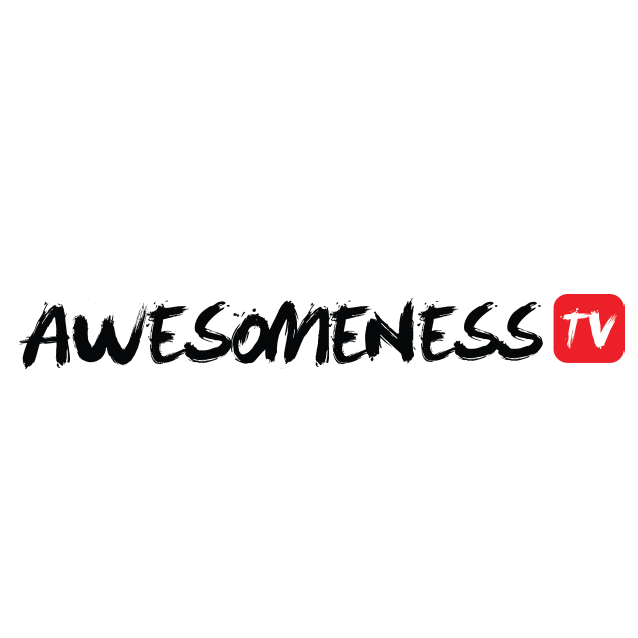
AwesomenessTV Logo Font In AwesomenessTV logo, Levi Brush font has been used. This font is a free brush script and designed by Levi Szekeres from Romania. Levi Brush font is available in both upper and lowercase letters, numerals along with limited punctuation marks.